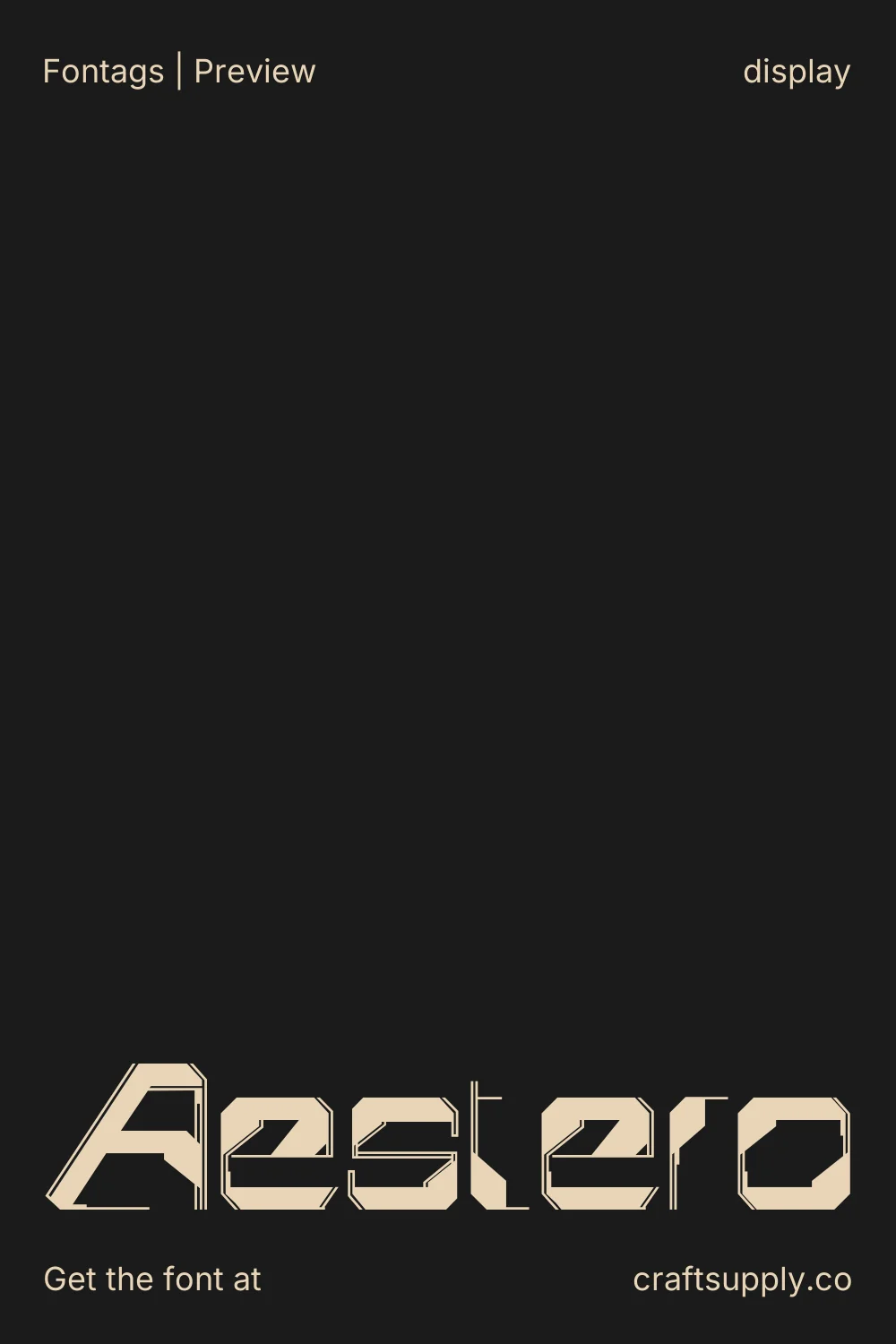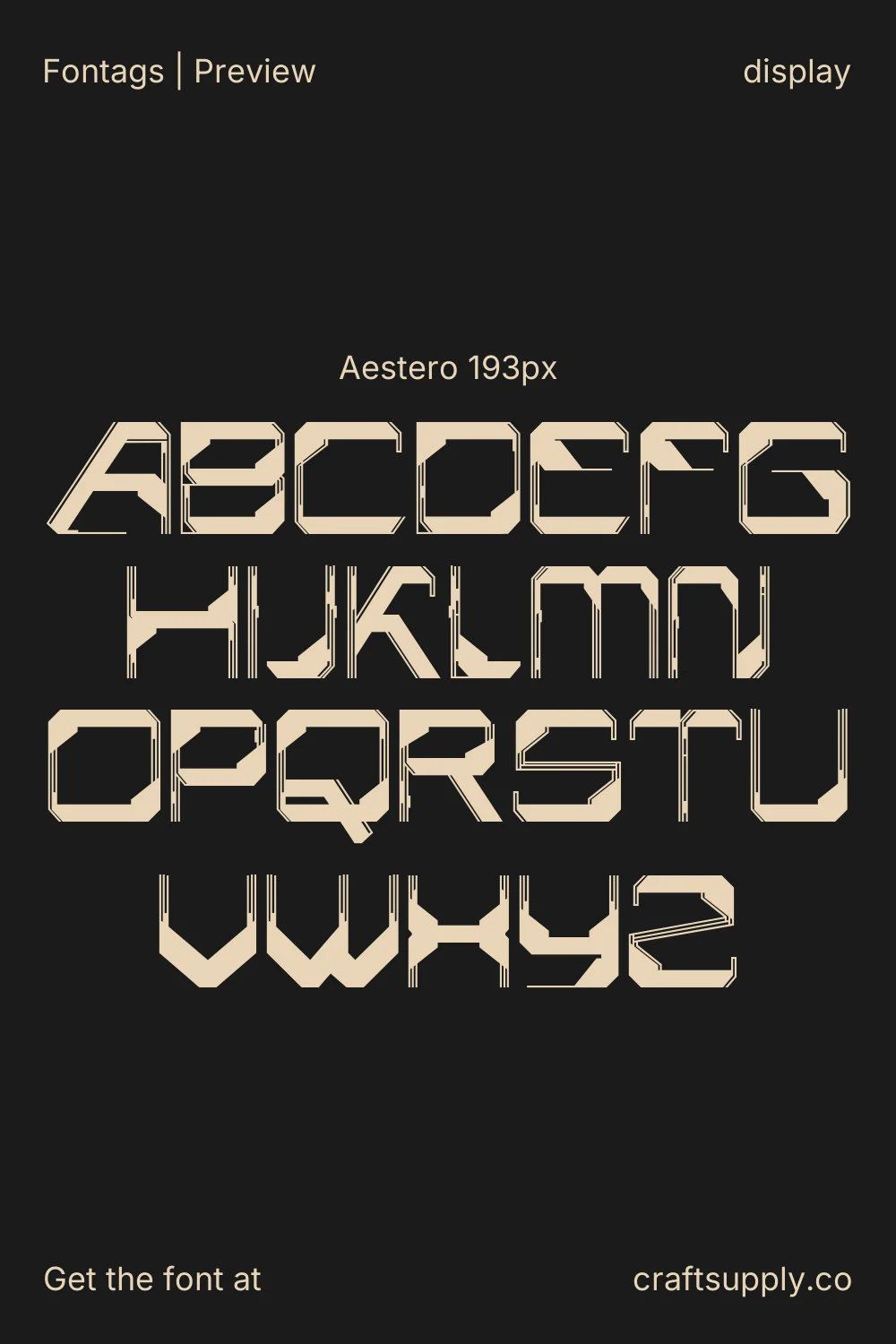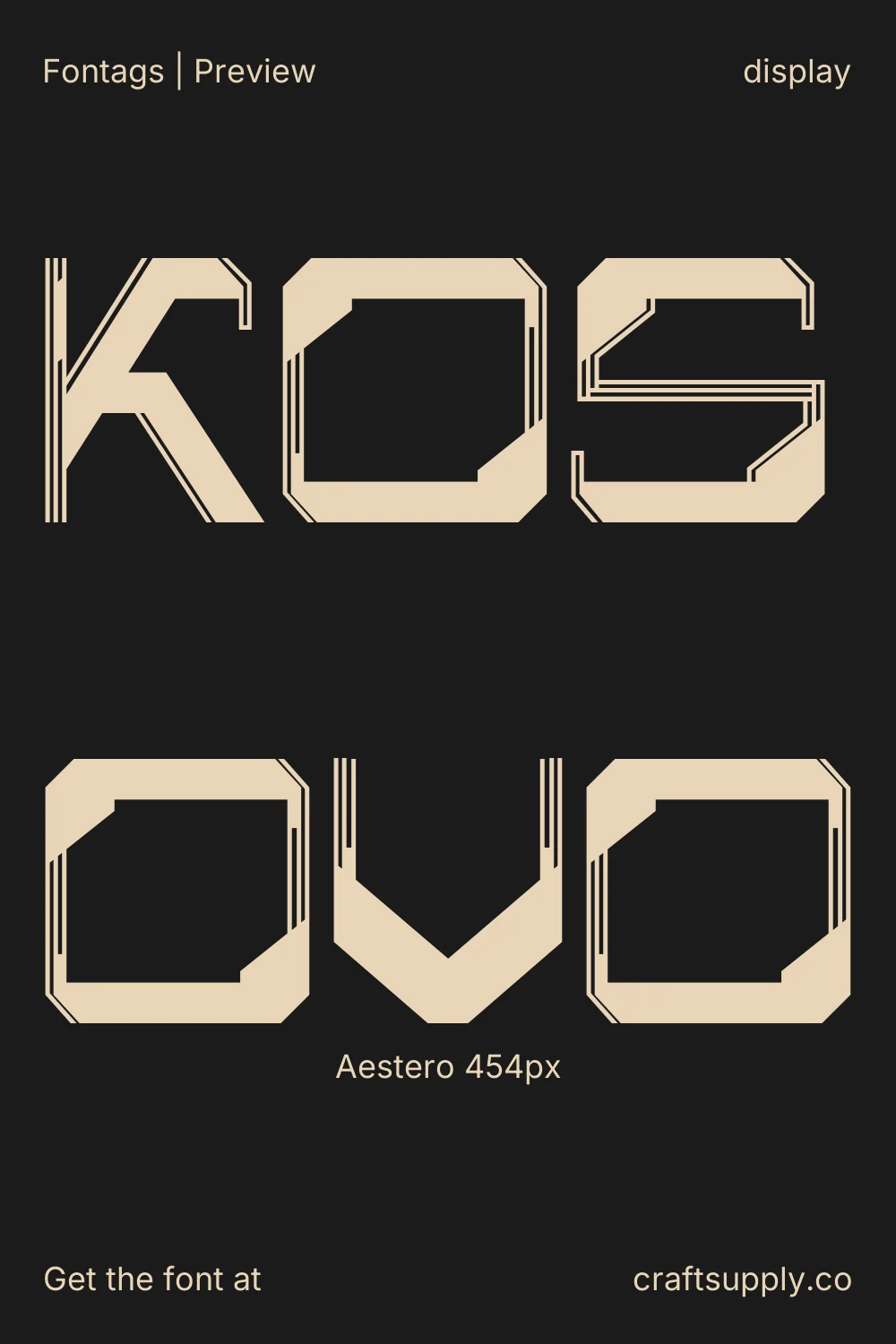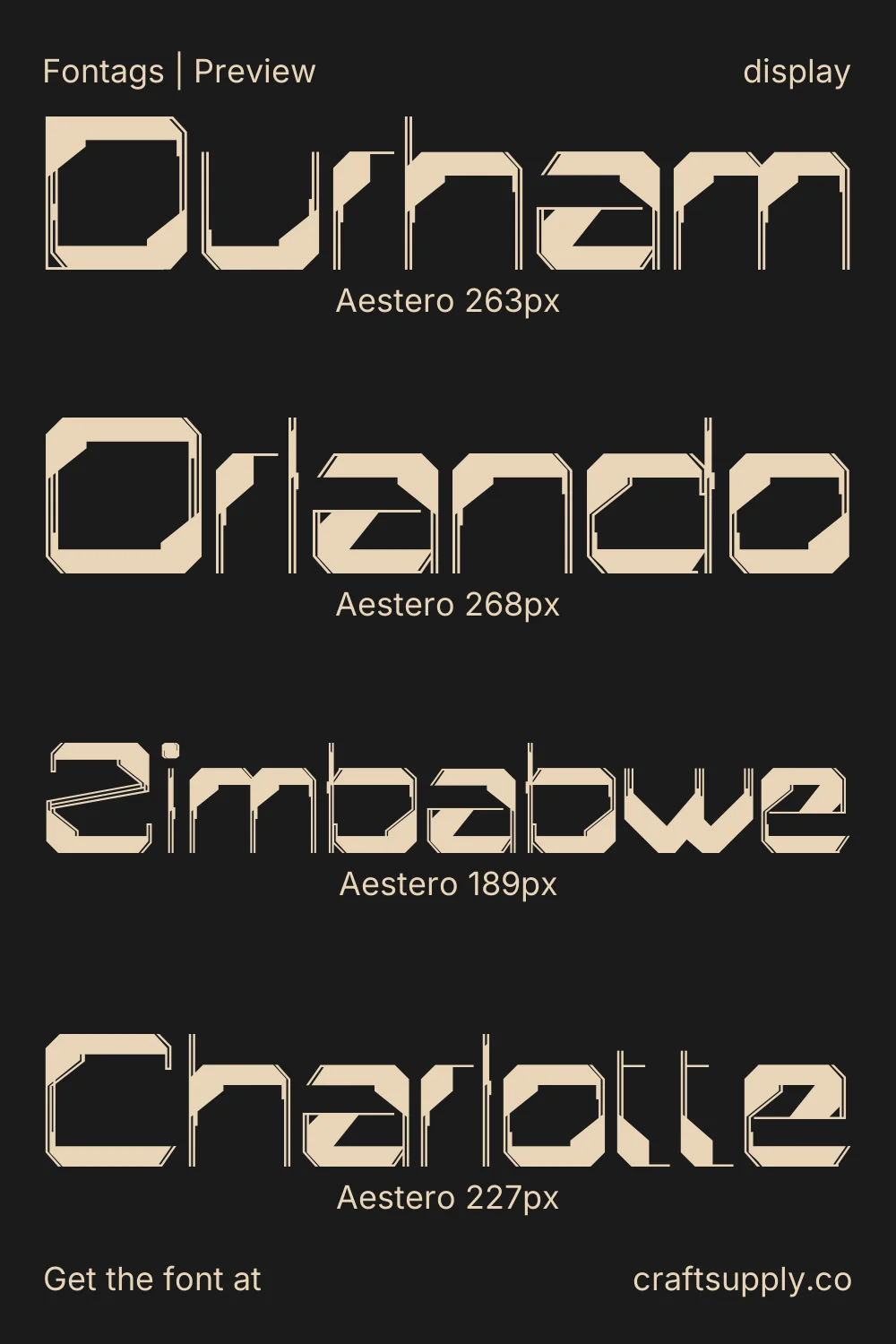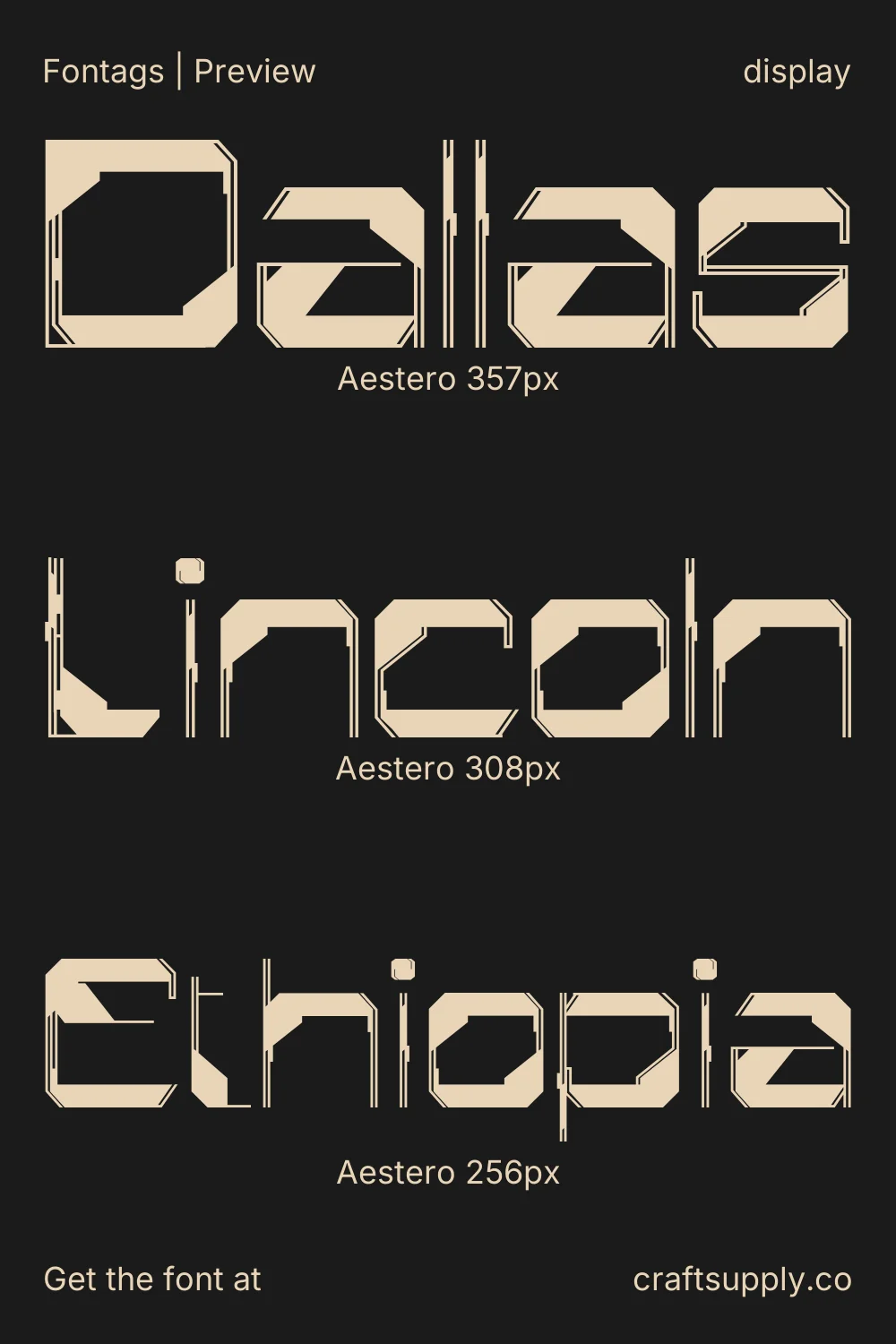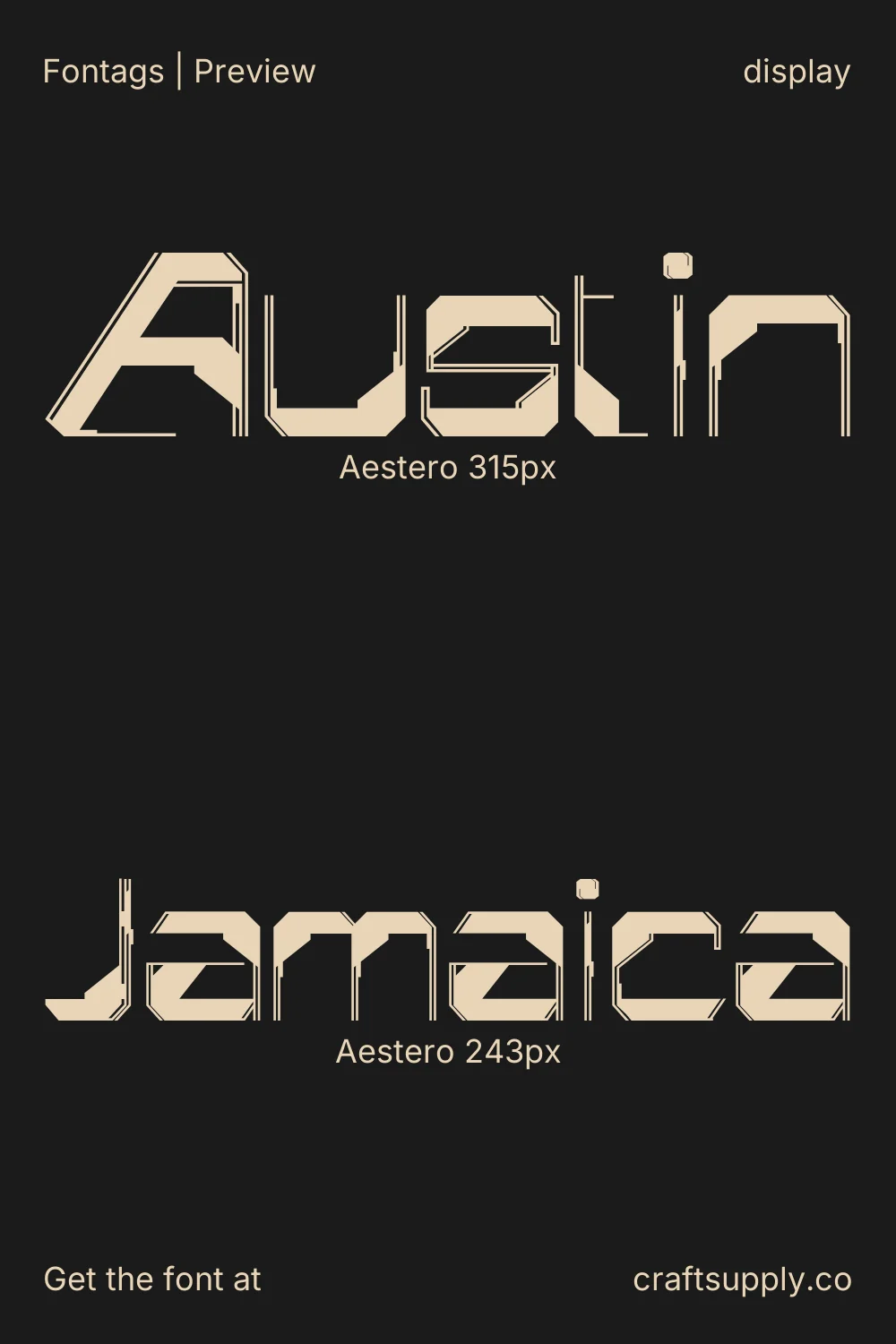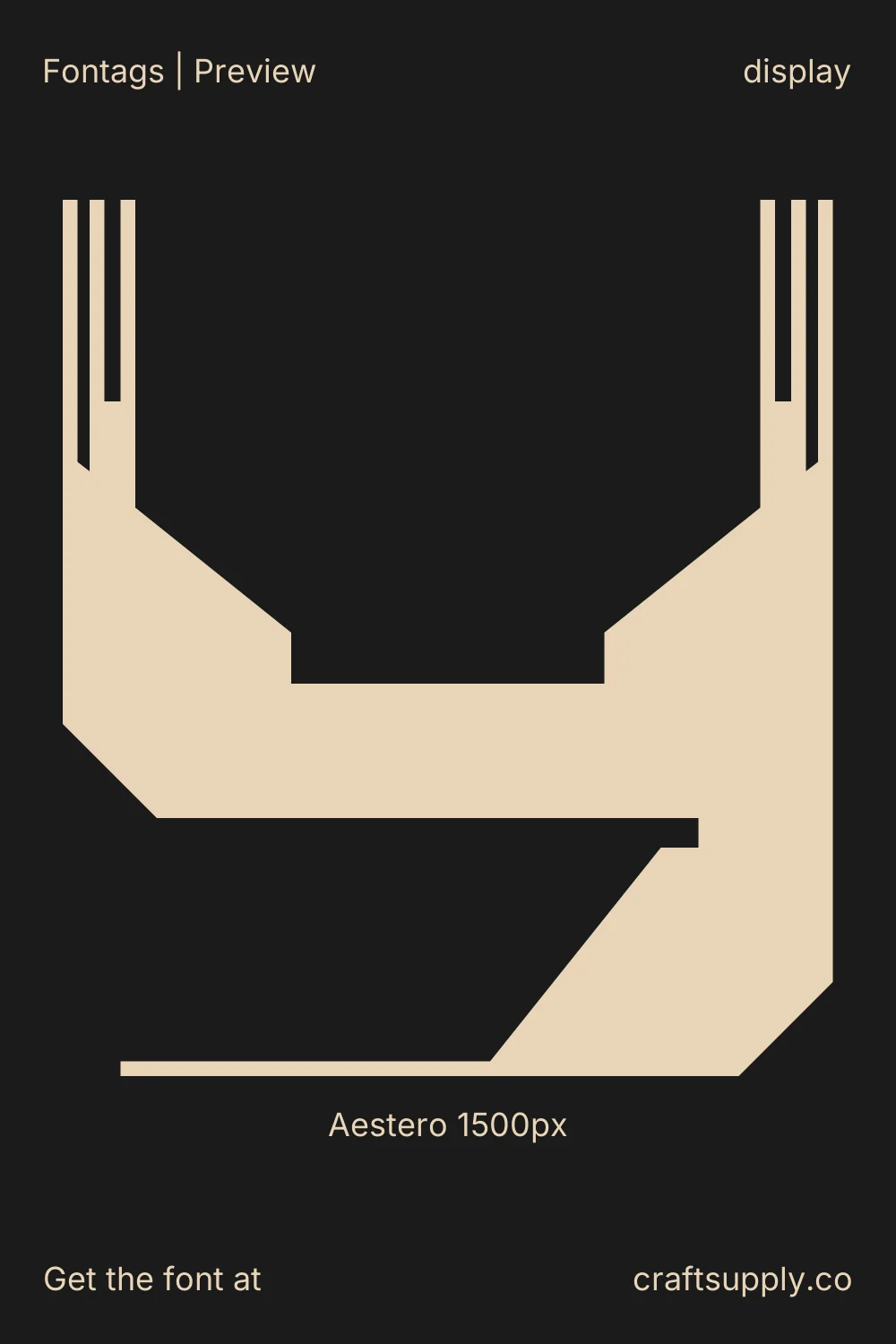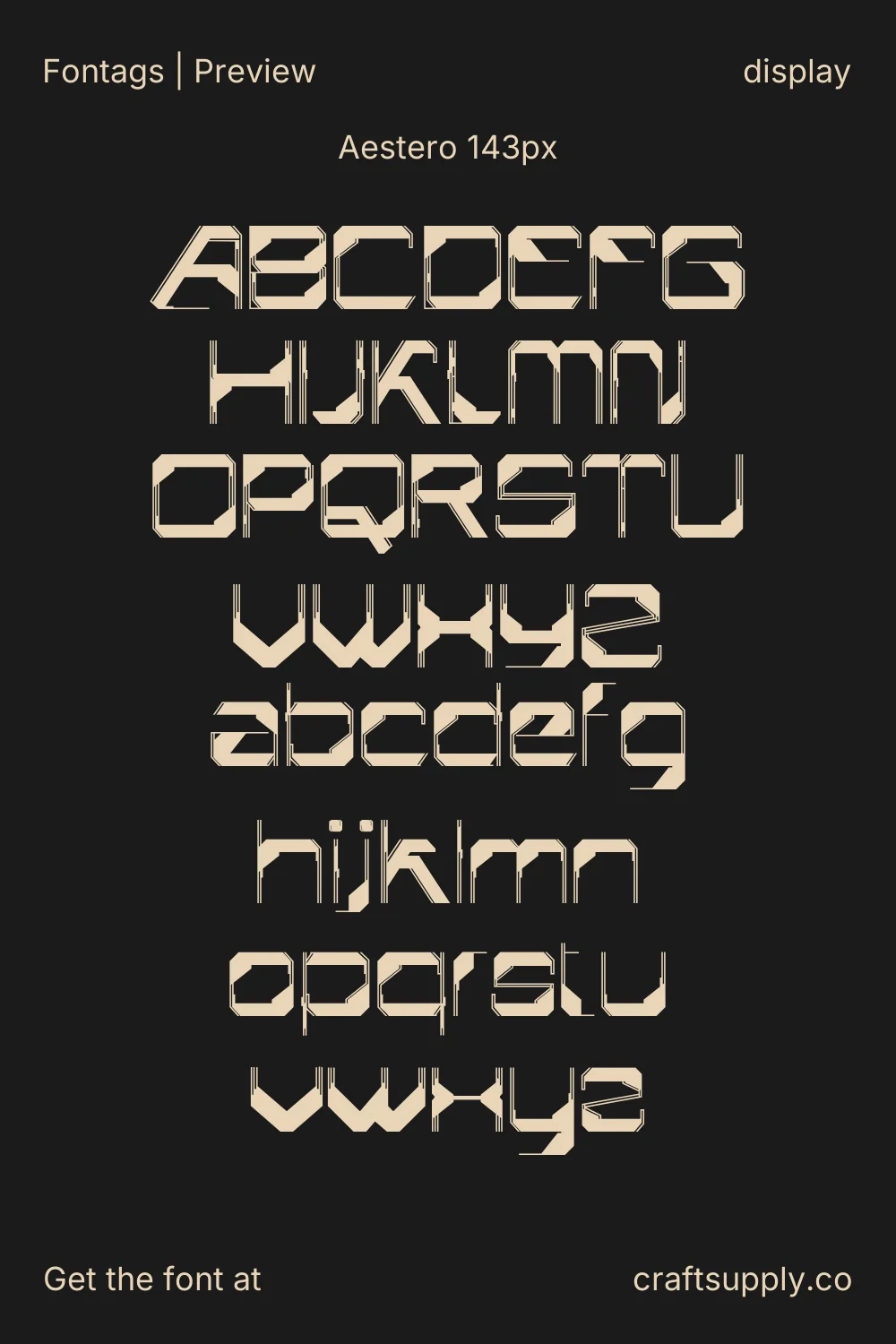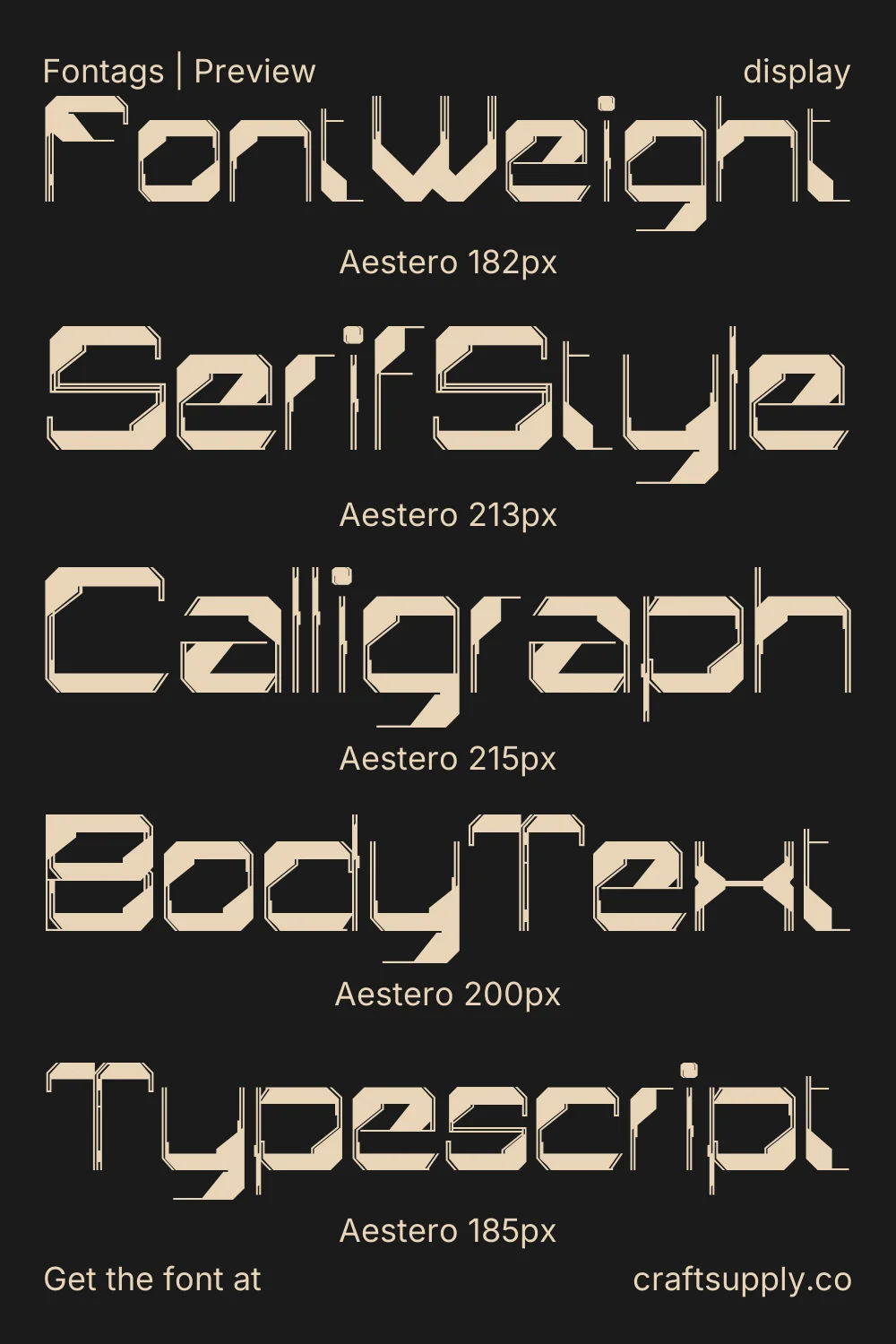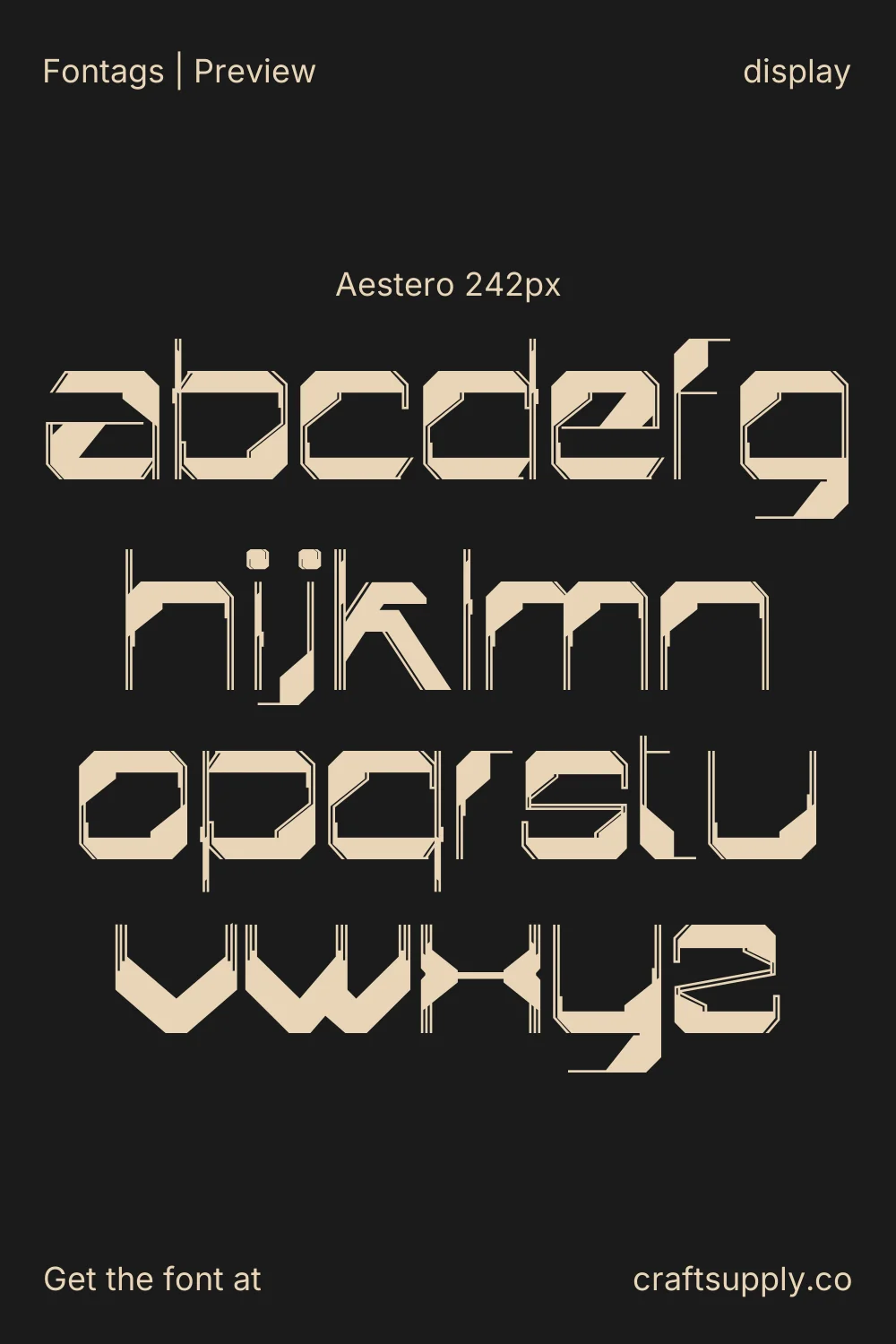
Aestero
Aestero is a futuristic display typeface inspired by Gundam and sci-fi aesthetics. Its sleek, bold letterforms command attention and add a dynamic presence to logos, headlines, and futuristic-themed designs. The font includes Regular and Italic styles with multilingual support, making it versatile for cutting-edge projects.